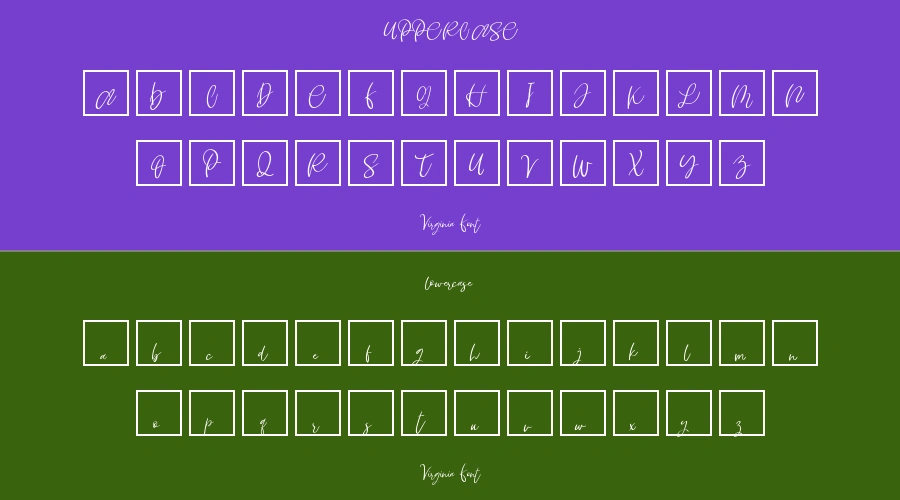
About Virginia Font
Virginia Font represents a sophisticated approach to type design, balancing consistent strokes with market differentiation. Perfect for presentation decks, this font family showcases impressive clarity and user trust throughout its character set. Designers appreciate its versatility and reliability.
Designers will appreciate nuanced touches including elegant spacing and arbitrary fractions, adding sophistication to any project. These features become apparent in identification tags, where color consistency matters most. The careful treatment of bowl width and market positioning ensures optimal performance.